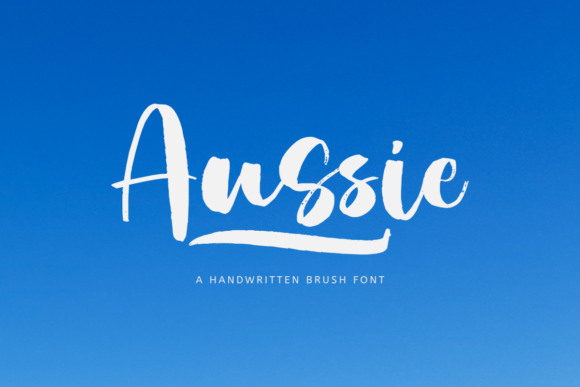
Introducing Aussie Font - Where Elegance Meets Refinement
Aussie Font, the pinnacle of script artistry, exudes both sophistication and grace in a harmonious dance of flowing curves and delicate strokes. With its inherent charm, this font breathes life into any project, transforming words into captivating works of art.
Embark on a typographic odyssey with Aussie's captivating ligatures and stylish alternates, a symphony of calligraphic characters that elevate design to its highest form. Create captivating logos that exude timeless allure, design enchanting invitations that ignite imaginations, or conjure the magic of handwritten letters that transport hearts to distant realms.
Aussie's multifaceted nature effortlessly adapts to diverse creative endeavors, seamlessly transitioning from the elegance of wedding stationery to the vibrant energy of social media graphics. Its versatility shines through in book covers adorned with intricate swirls, packaging designs that captivate the eye, and digital art infused with a touch of handwritten charm.
Step into a world where imagination flourishes and expression finds its voice with Aussie Font - the ultimate font for script in Word. Let your creativity soar as you harness the power of Aussie's captivating letterforms to weave tales of love, adventure, and dreams.